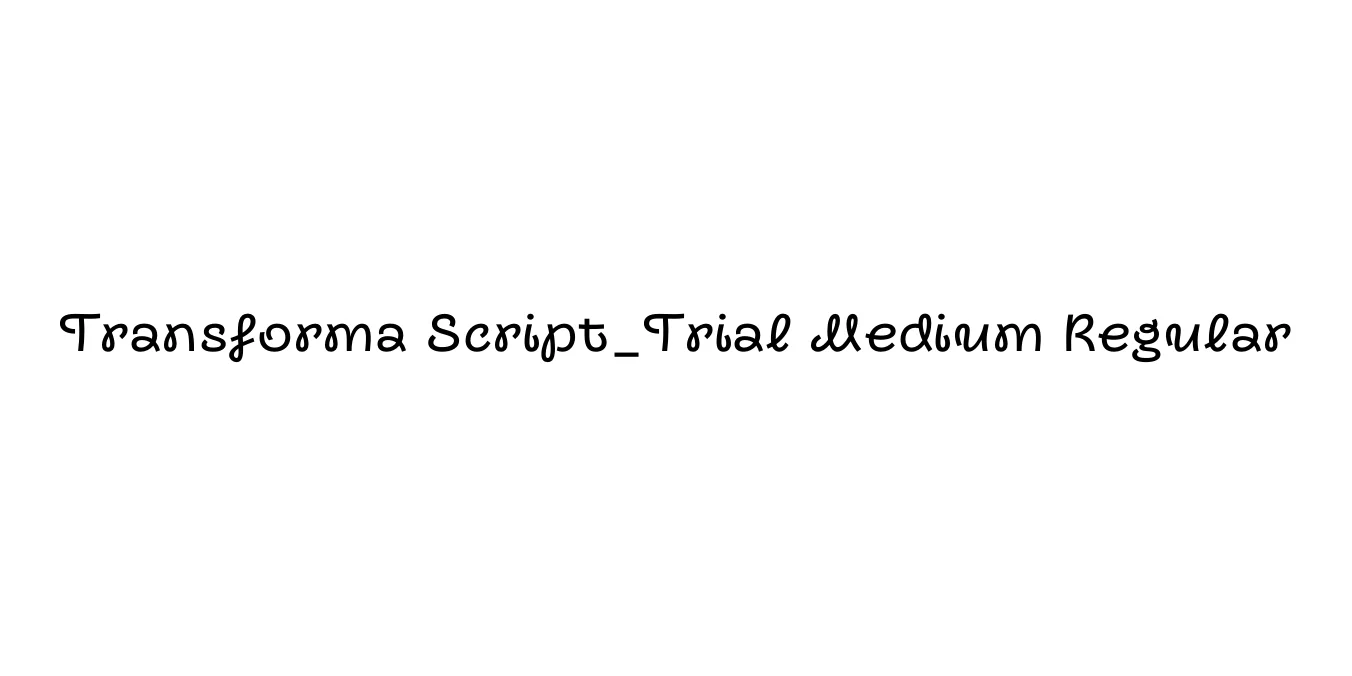
Transforma Script_Trial Medium Regular
Designed by Roch Modrzejewski
Transforma Script is a sophisticated and contemporary script typeface designed by Roch Modrzejewski of Thunder Type. It serves as the expressive, handwritten component of the expansive Transforma superfamily, which also includes sans and serif variants. This script version is characterized by its fluid rhythm and precise construction, blending the warmth of manual calligraphy with the clean lines required for modern digital environments.
The Transforma Script_Trial Medium Regular weight provides a substantial yet elegant stroke that maintains high legibility across various platforms. Its carefully crafted ligatures and smooth transitions make it a standout choice for designers looking to add a personalized, high-end feel to their projects without sacrificing professional structural integrity.
Transforma Script_Trial Medium Regular Best Uses
Perfect for luxury logos and visual identities that require a human touch.
Excellent for high-impact headlines and pull quotes in lifestyle magazines.
Adds an artisan, premium feel to product labels and gourmet packaging.
Ideal for creating stylish quote cards and eye-catching Instagram graphics.